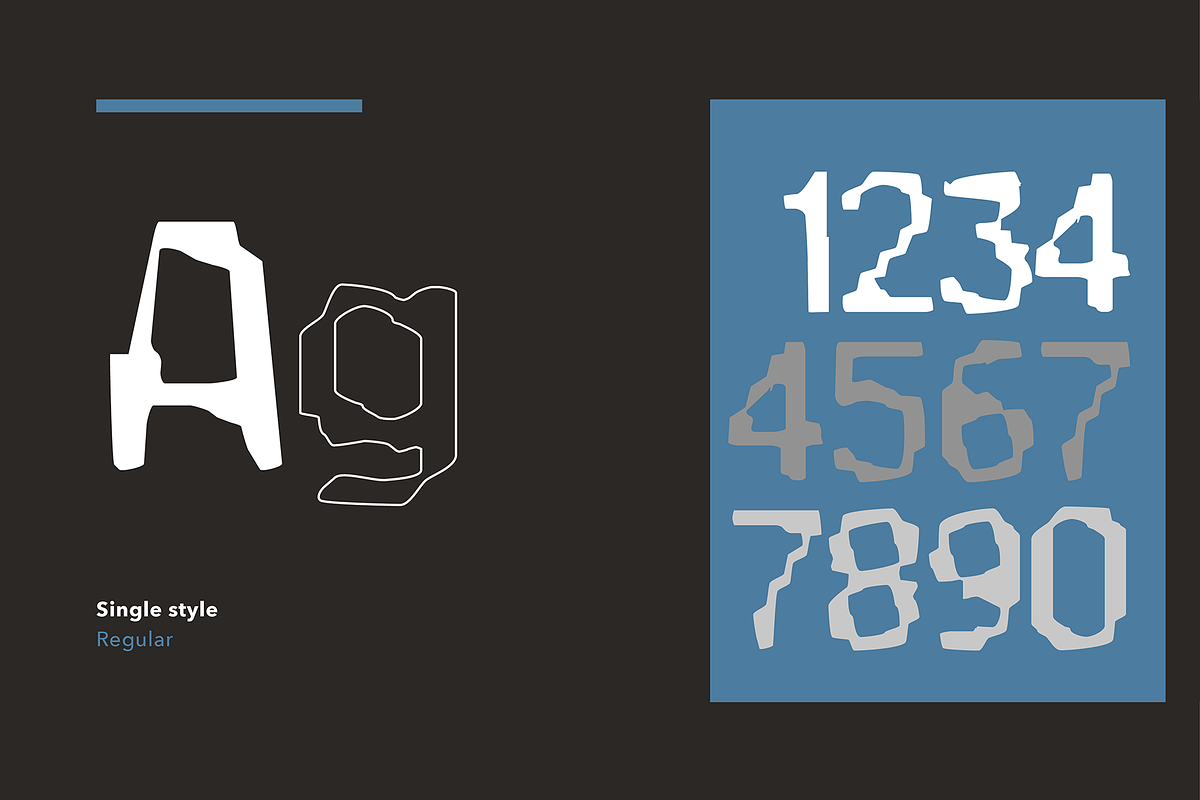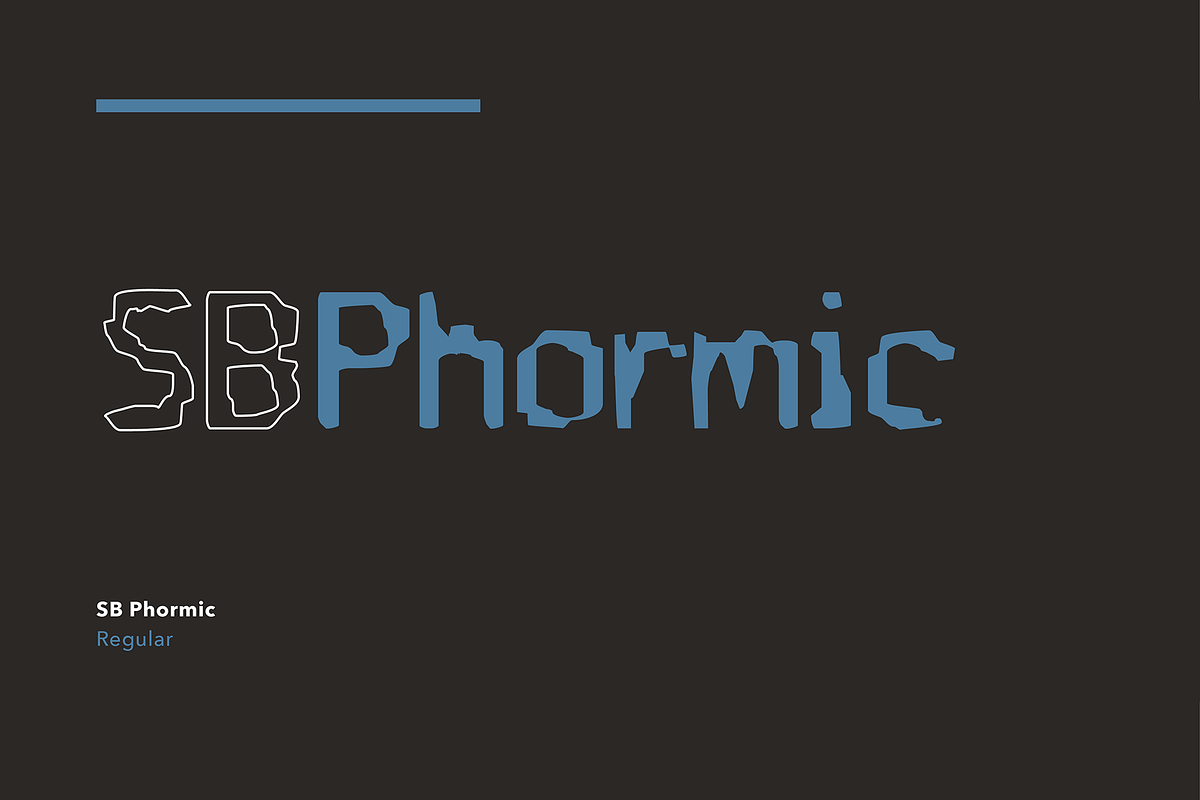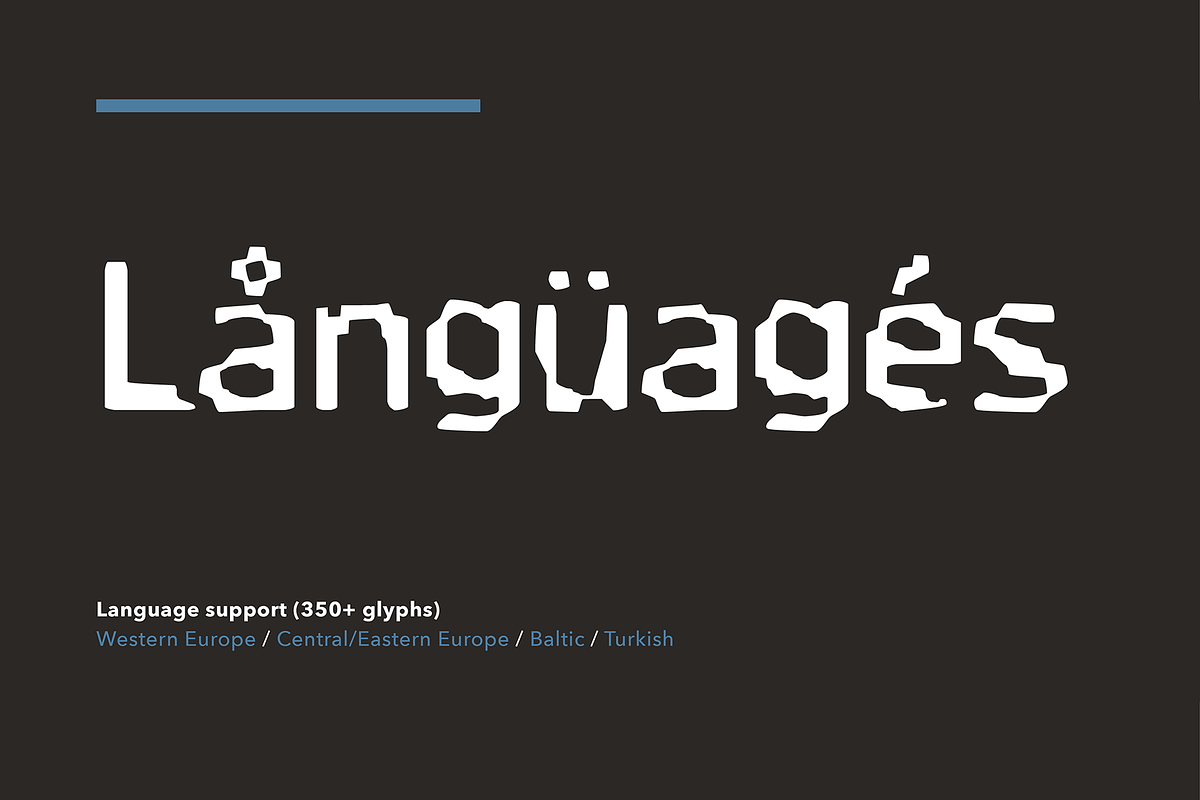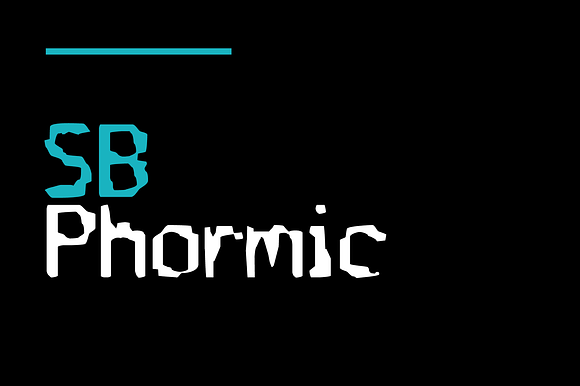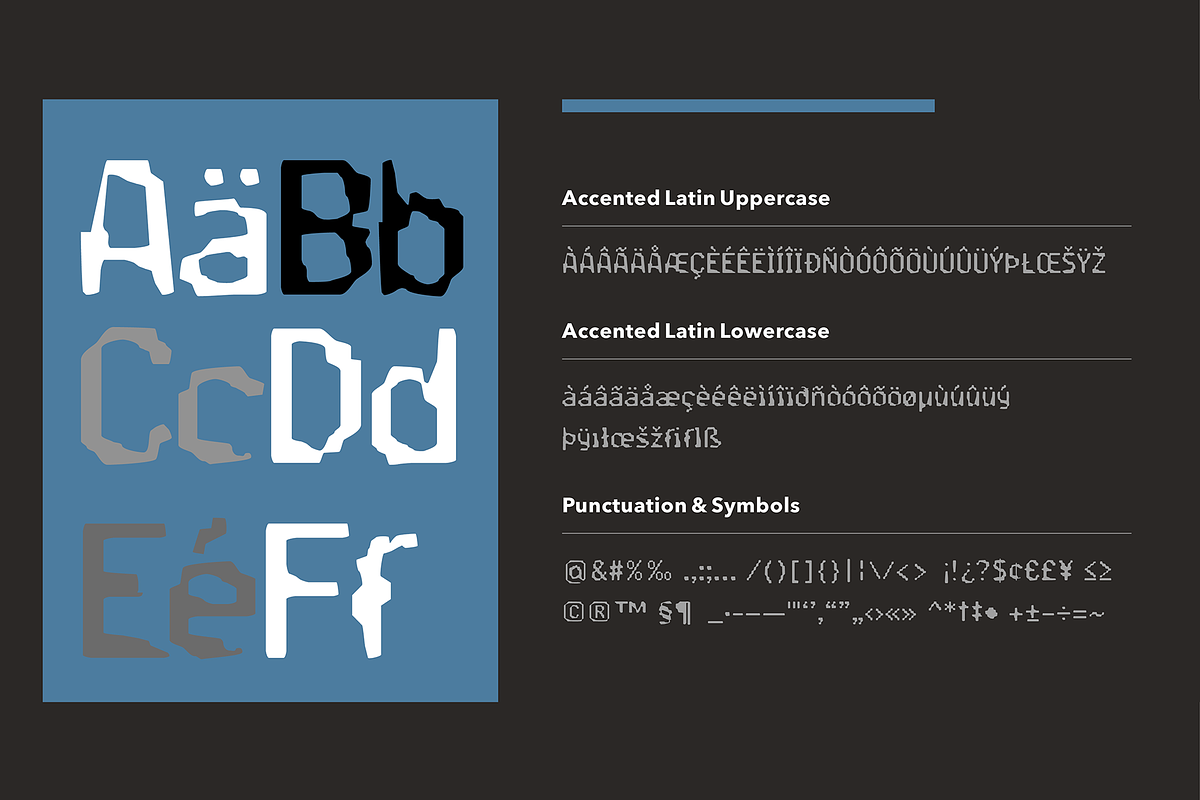
SB Phormic - Grunge Font
This font contains 374 glyphs.
Supports 37 languages.
SB Phormic is a grunge typeface with hybrid DNA, spliced together from two other typefaces. Its genesis was the interpolation of SB Tokyo and SB Liquid, creating something new, yet strangely reminiscent of them both. The resulting letterforms have a distressed mechanical look, perhaps like something you might find on the output from a fax machine or some other text generating machine. There are pixel like forms in there, but they appear broken and distorted, giving the impression of damaged electronics or corroded machinery. SB Phormic works well in these contexts, as a distressed typeface to convey the feeling invoked by seeing the decaying remnants of heavy industry or the technological scrapheaps of abandoned technology.